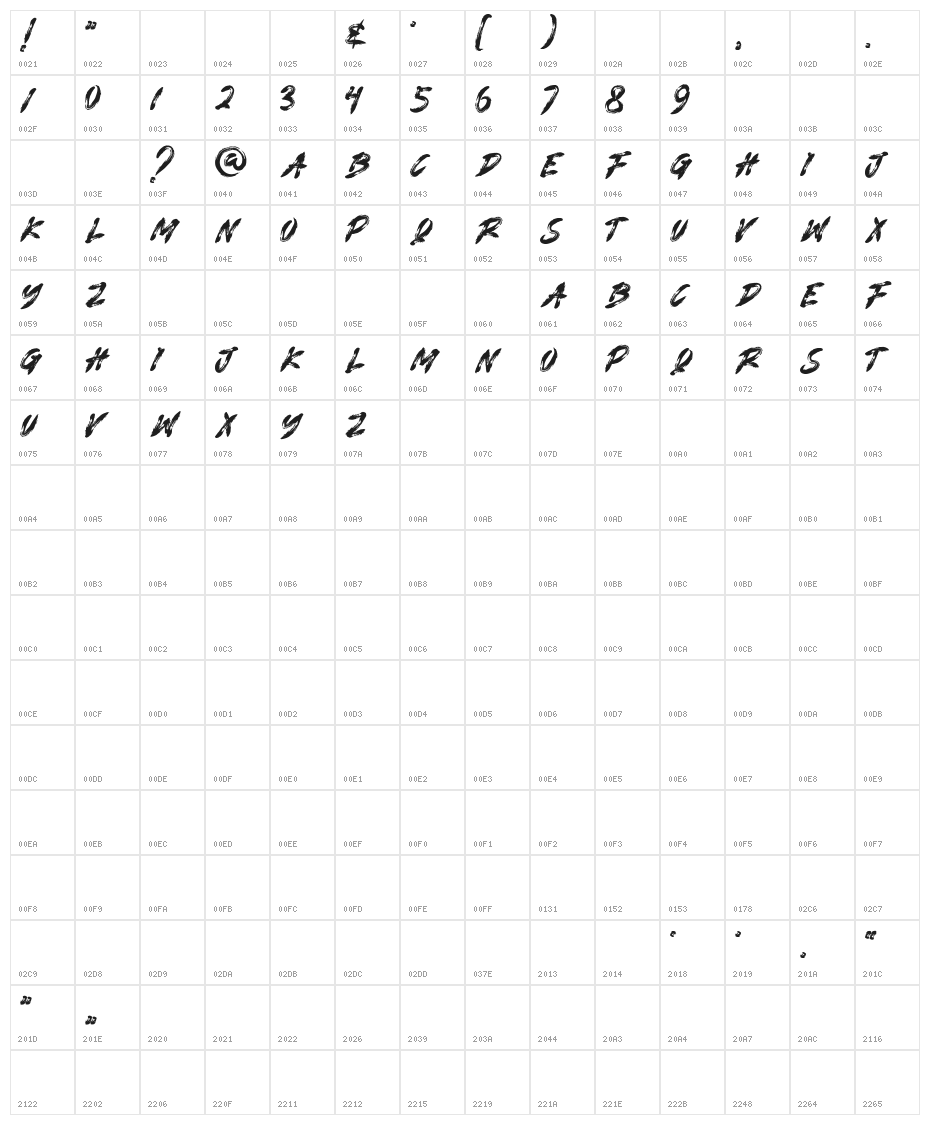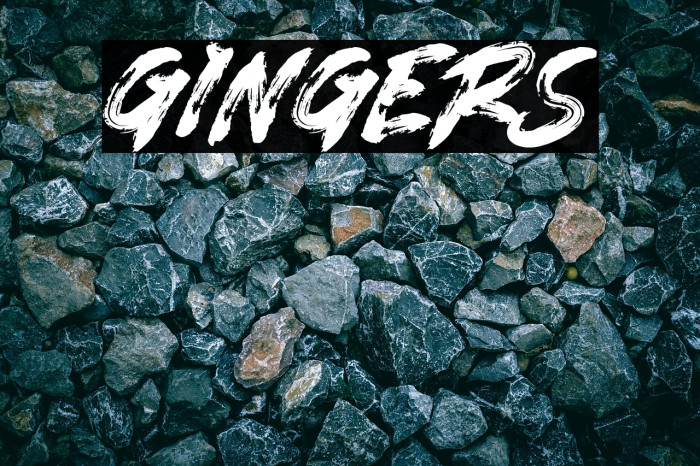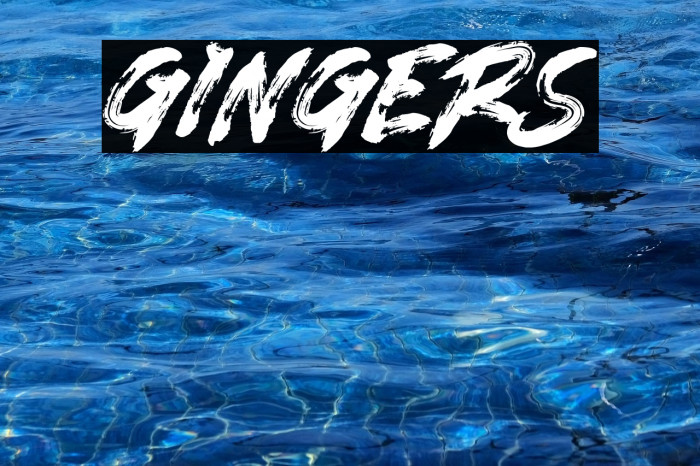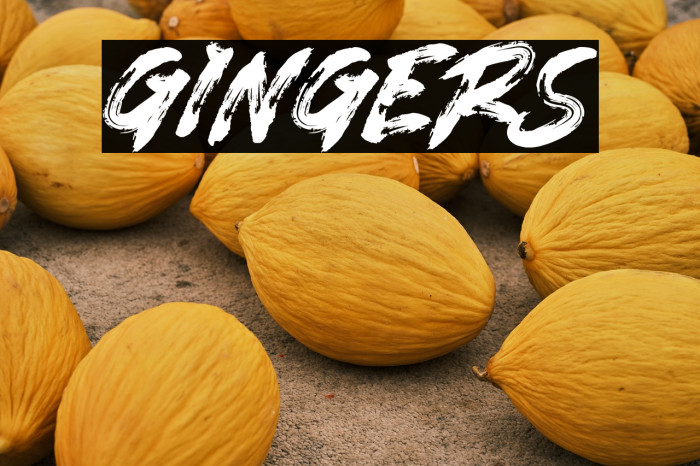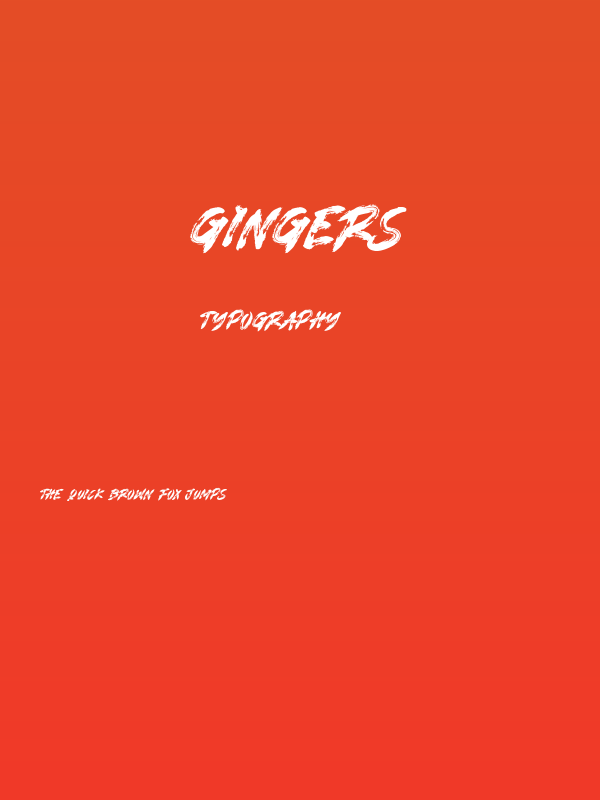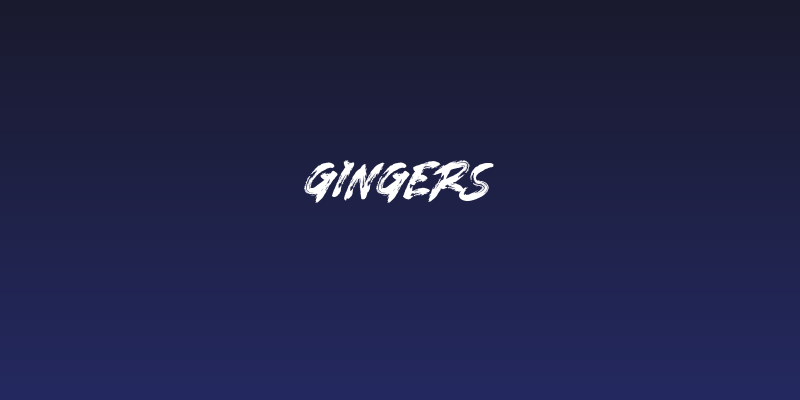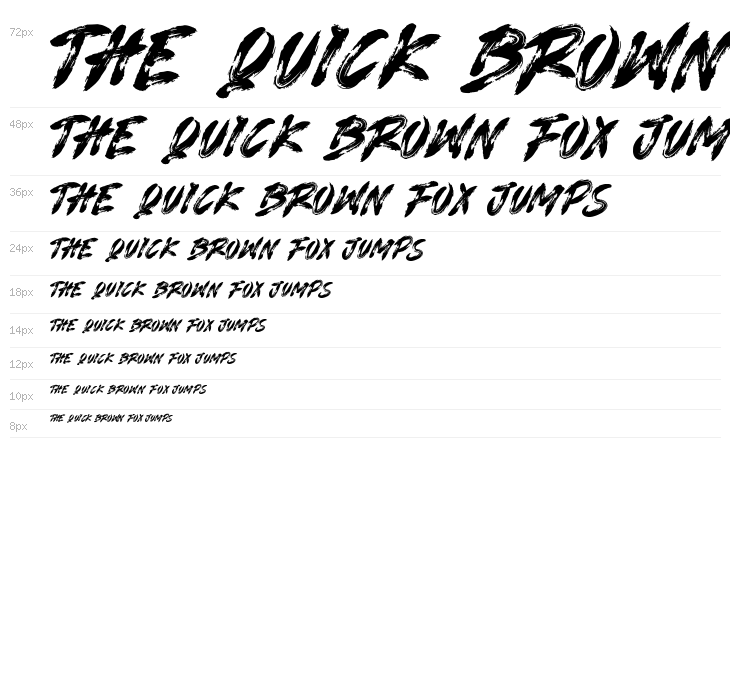
GINGERS Font
GINGERS Description
This font features a bold, brush-like style that exudes energy and dynamism. The strokes are thick and textured, giving the impression of being hand-painted with a broad brush. The letters have a slightly slanted orientation, adding to the sense of movement and fluidity. The uppercase and lowercase letters maintain a consistent style, with the uppercase being more pronounced and the lowercase slightly more compact. Numbers and special characters follow the same bold, expressive design, ensuring a cohesive look across all text elements. This font is ideal for projects that require a strong visual impact and a touch of artistic flair.
| Proposed Projects | Ideal for posters, branding, headlines, and any design needing a bold, artistic touch. |